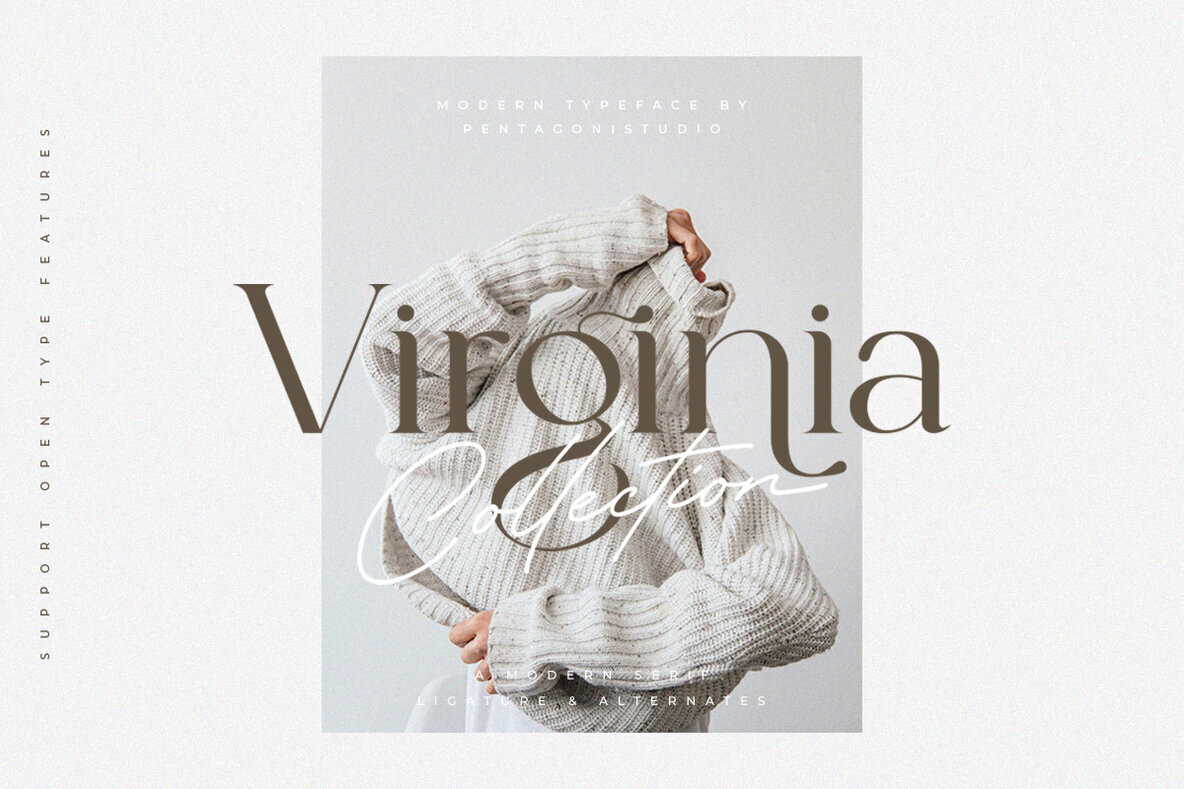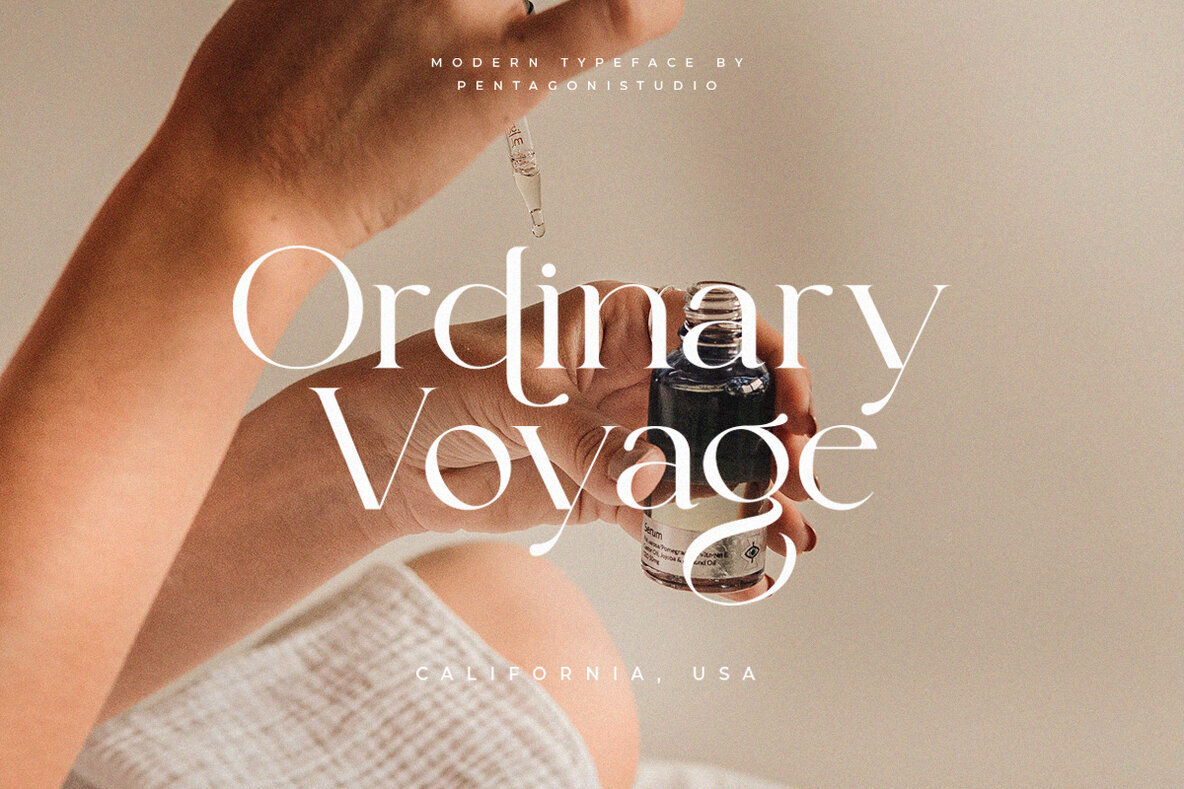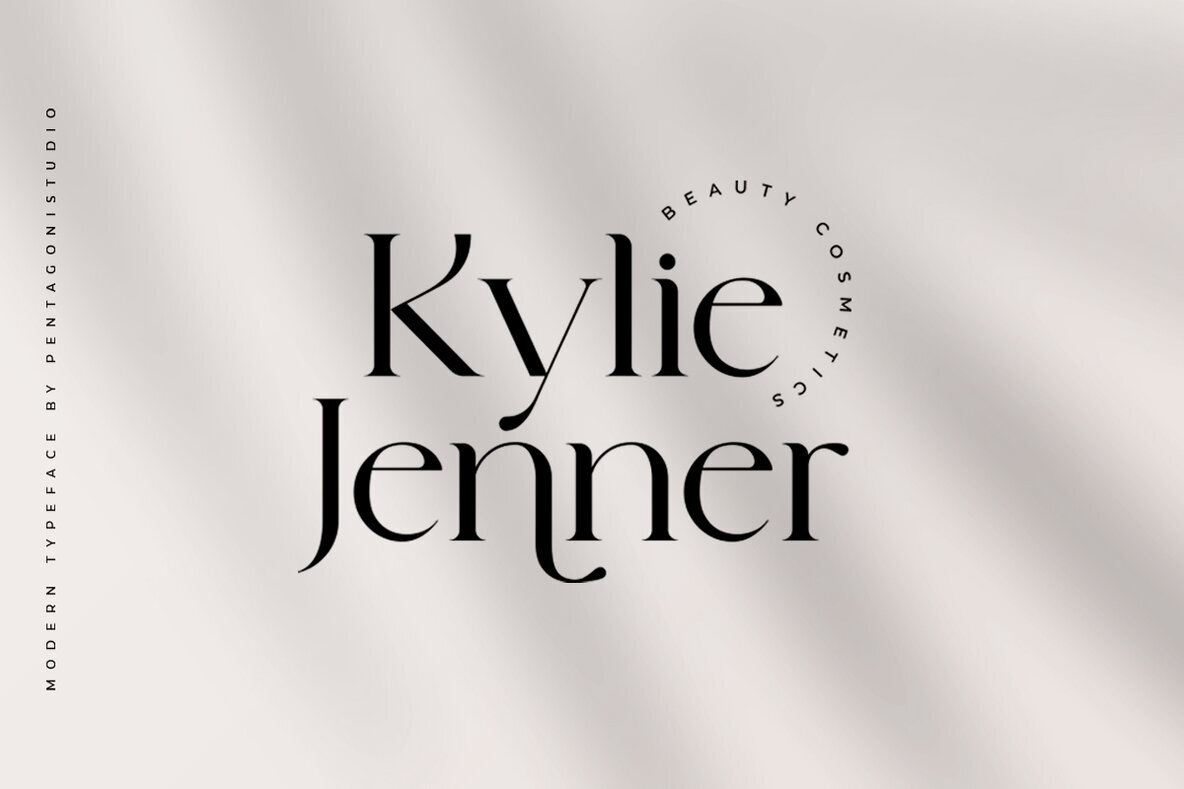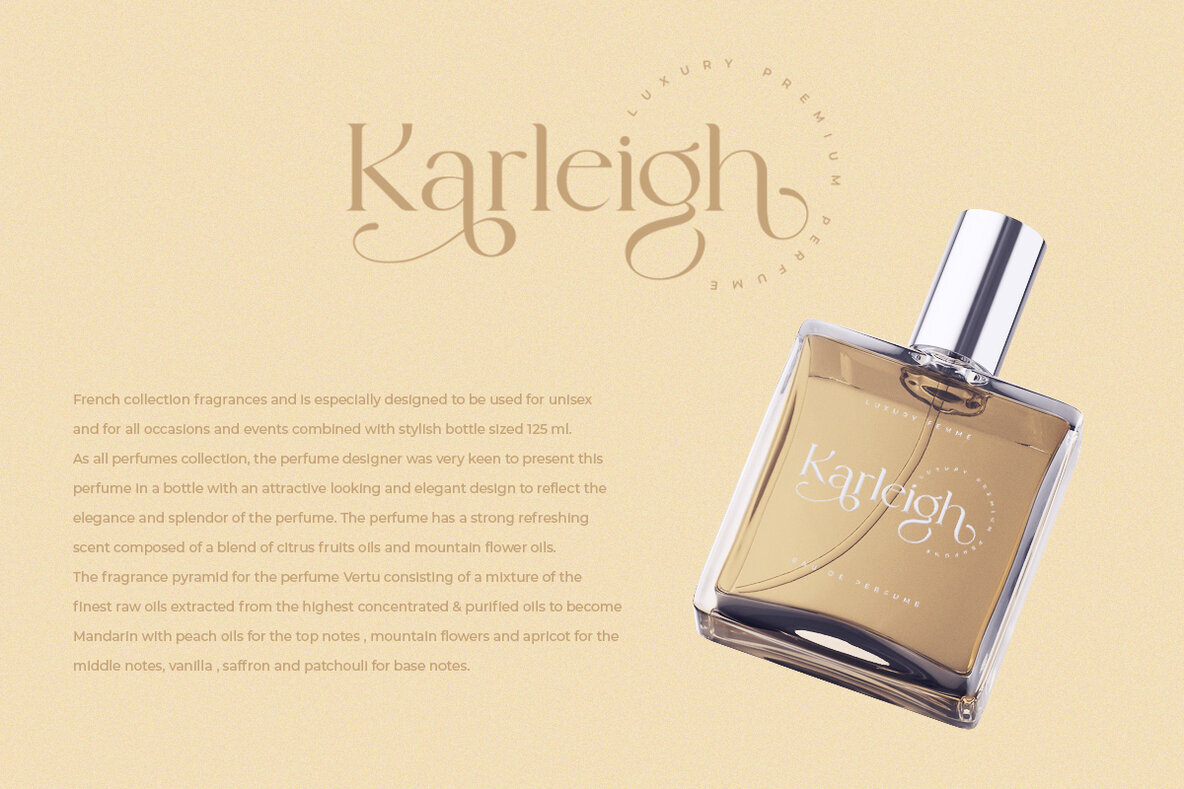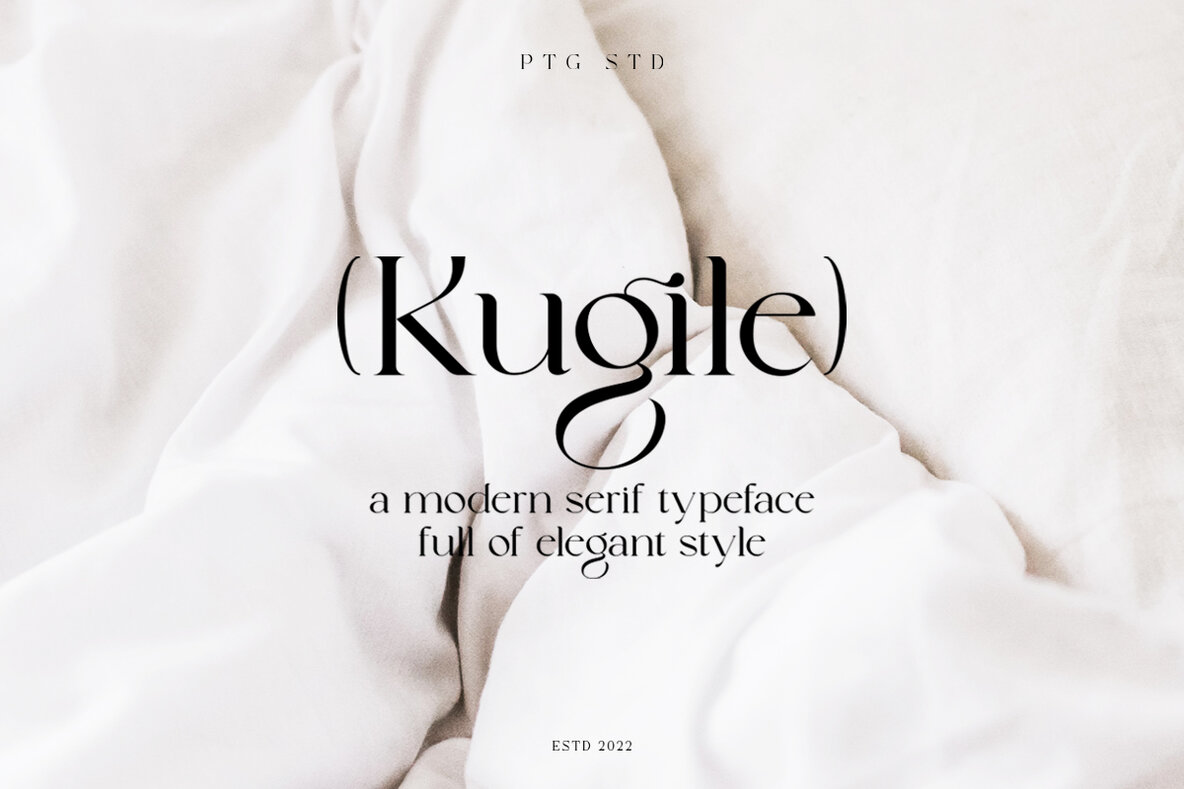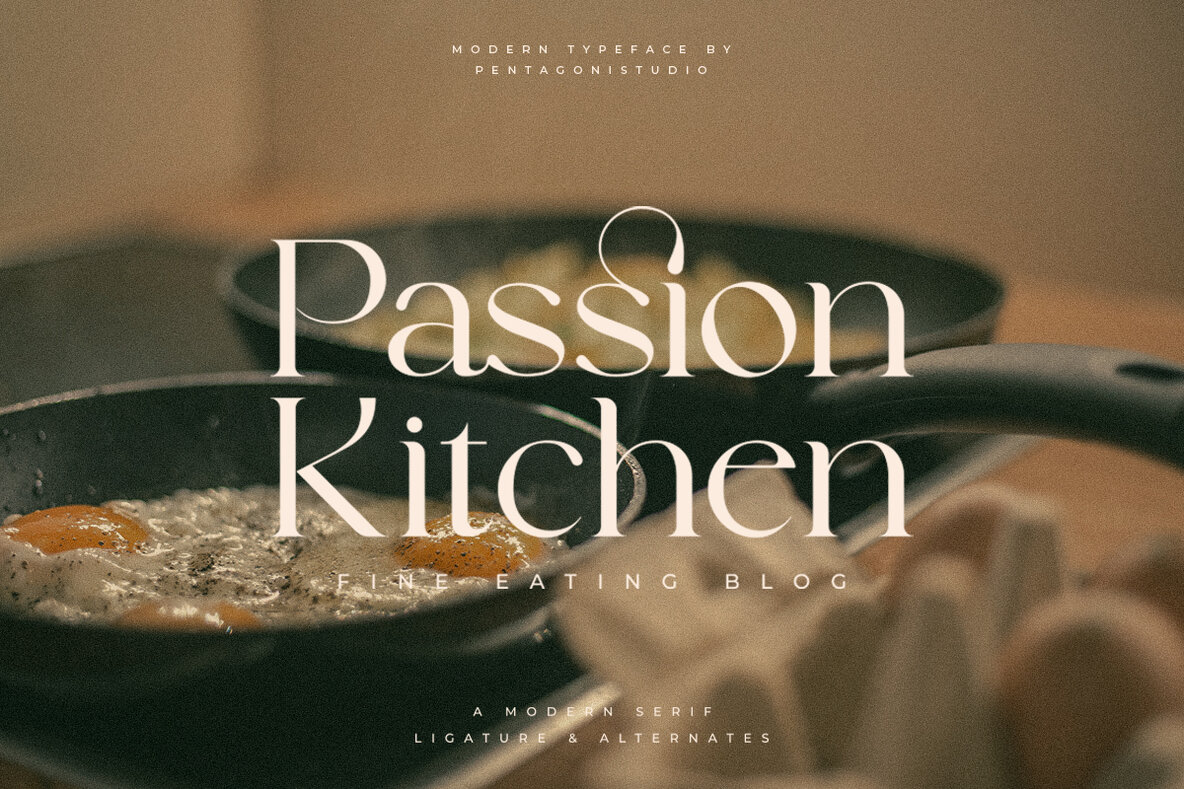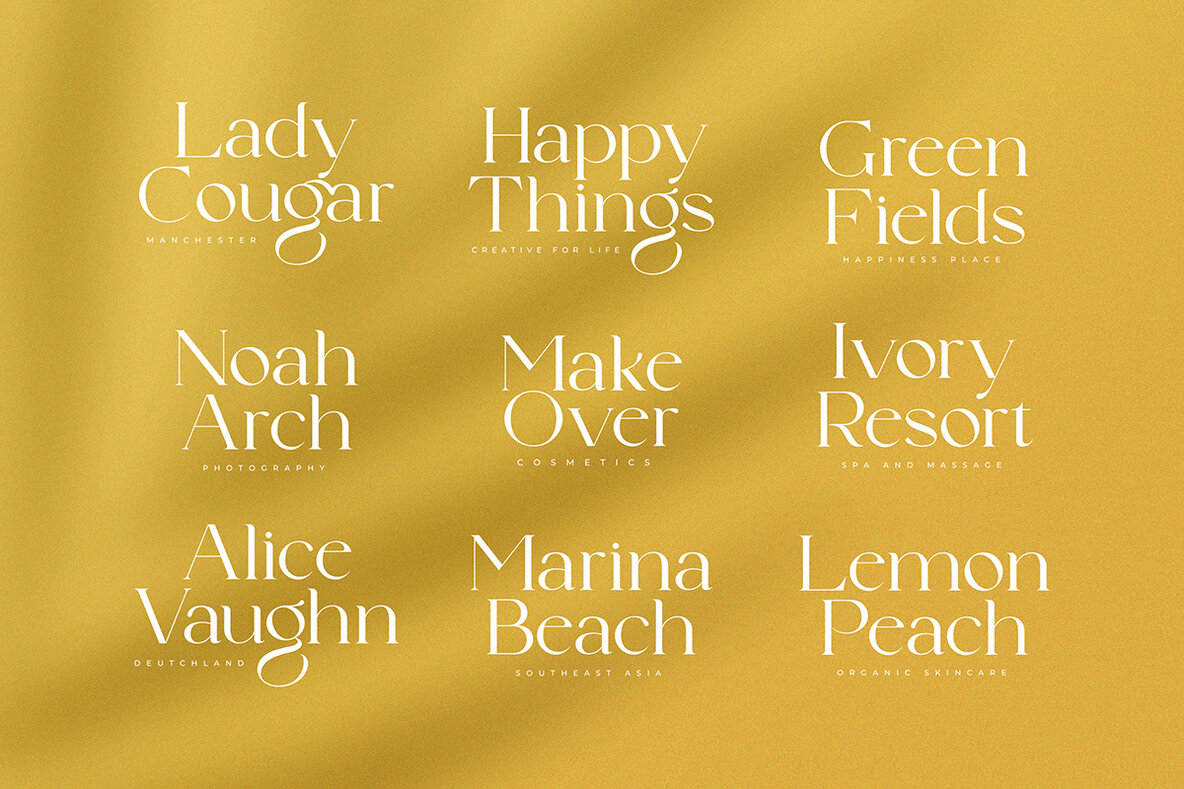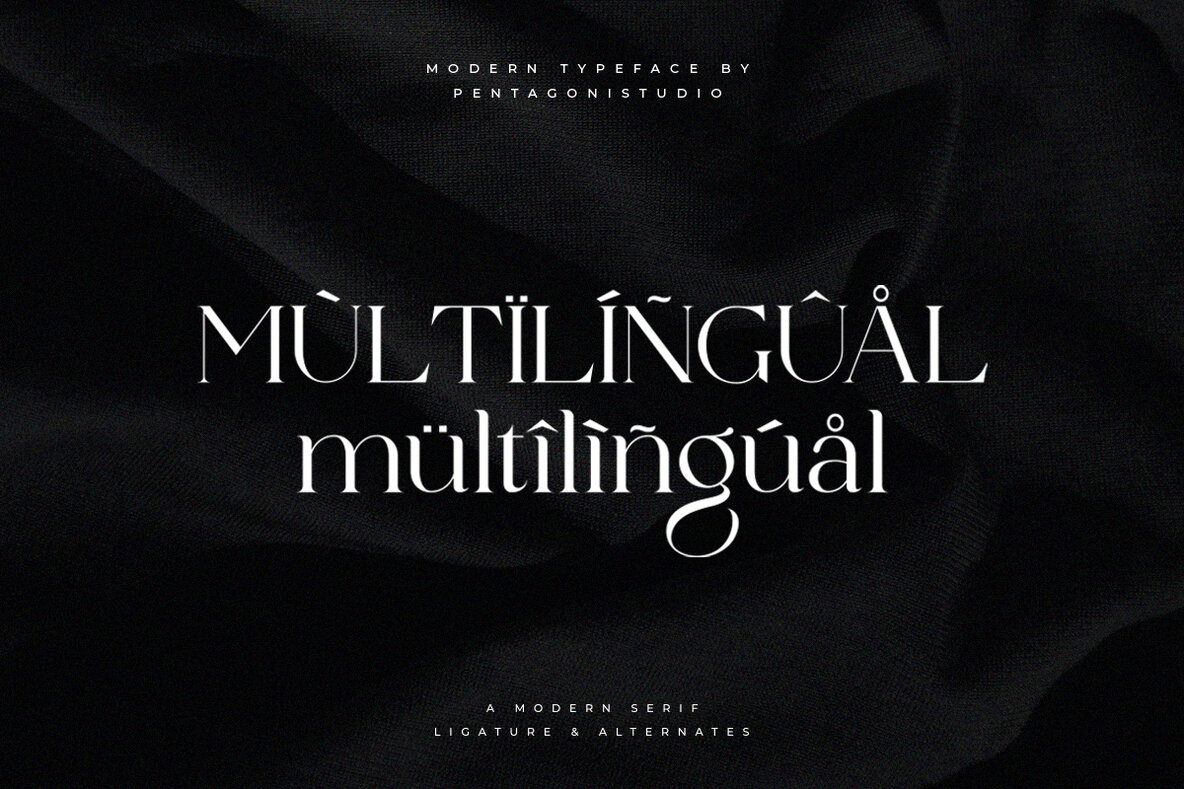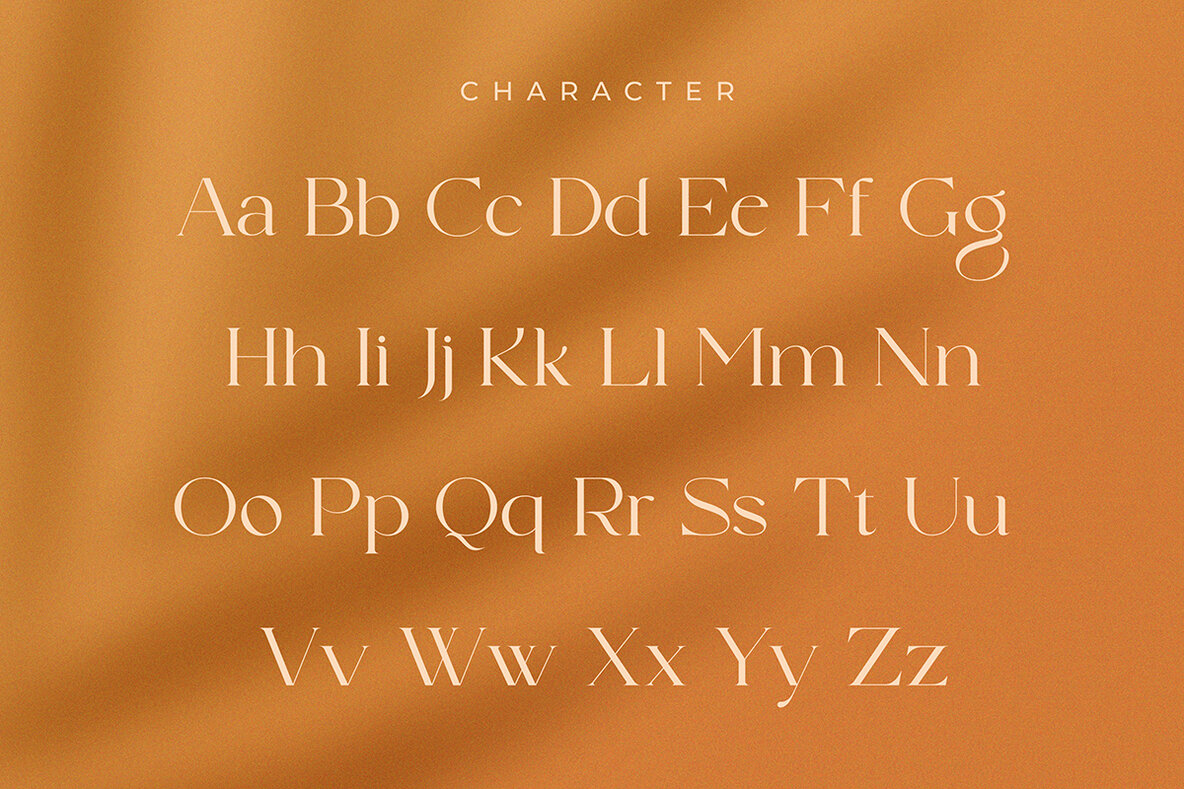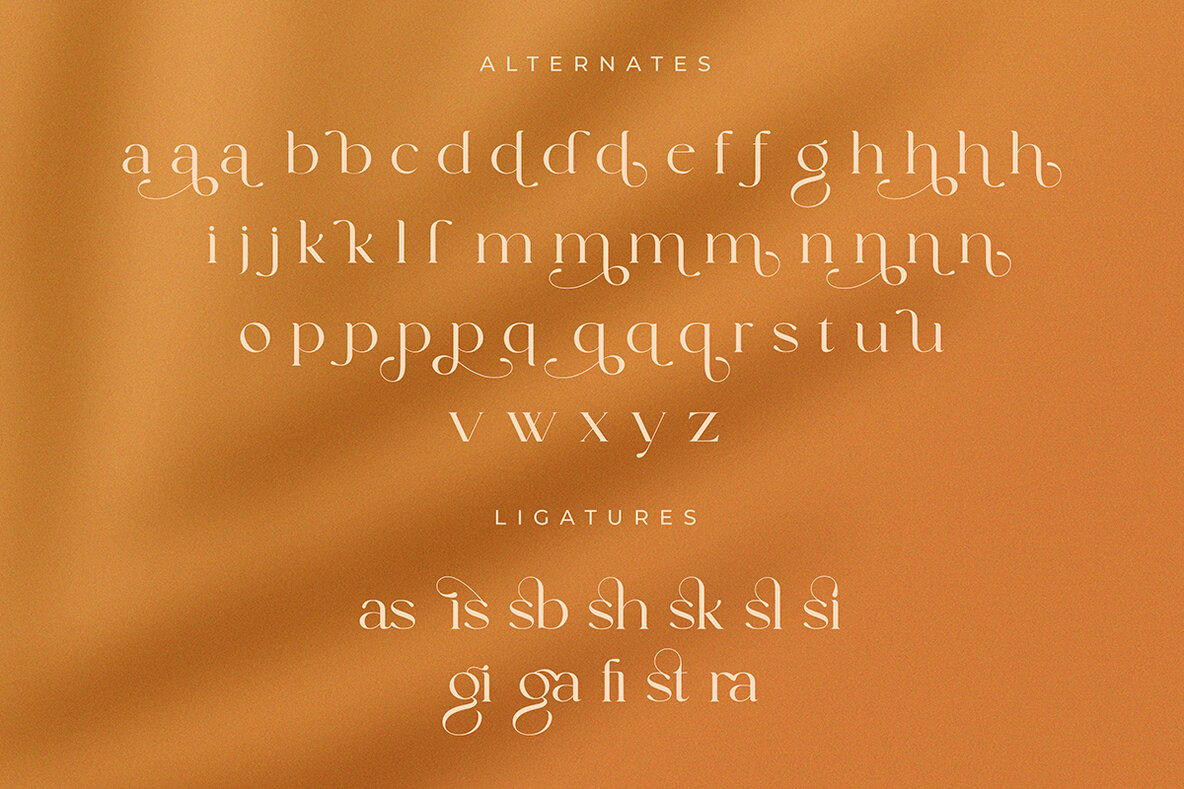
Kugile: An Elegant Serif Font for Luxurious Designs
Embrace the sophisticated allure of Kugile, a serif font that captures the essence of luxury and elegance. Designed with a keen eye for detail, Kugile offers a timeless visual appeal that enhances both digital and print designs. Its balanced character makes it a versatile choice for designers seeking a refined aesthetic.
• Exquisite Detail – Each letterform is crafted with precision, offering a polished look.
• Versatile Application – Ideal for both modern and traditional design projects, from high-end branding to editorial layouts.